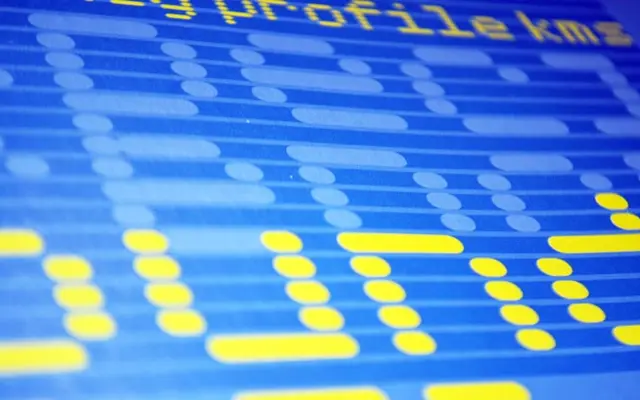
Foundry Dat
The Foundry Types · David Quay · 2003
A dot matrix display face built on a 5x9 lozenge grid, designed to layer and tile into continuous patterns and compositional shapes.
Constructed on a strict 5x9 grid of oblong lozenge shapes, Foundry Dat carries an integrated background grid that aligns seamlessly when text is set solid, allowing characters to form repeating patterns when stacked or offset. It pairs with the companion family Foundry Dit, which shares the same letterforms but without the background grid, functioning instead as a typewriter-style correspondence face. Four weights run from Light to Bold, with extended dash characters to continue the grid horizontally and vertically.
Foundry Dat is built on a 5x9 dot matrix grid using oblong lozenge shapes, with an integrated background grid that aligns when set solid. Its primary function is graphic and compositional rather than text-setting, placing it firmly in the display category.